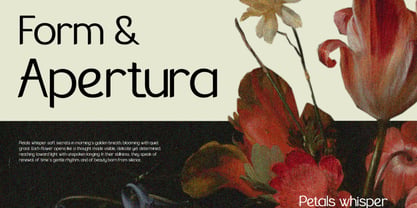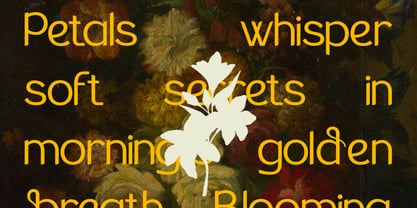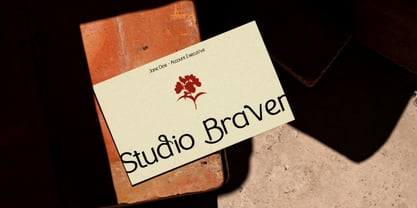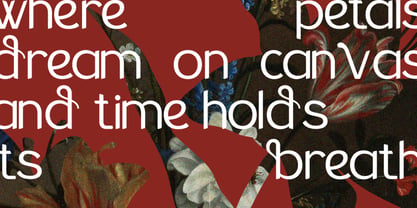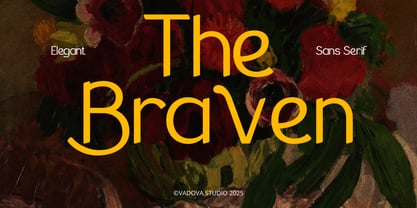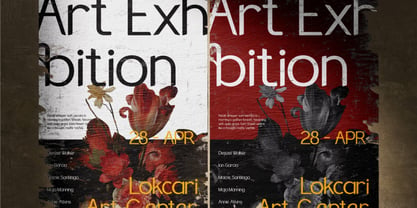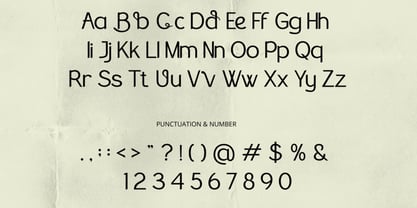
The Braven
by Vadova Std
The The Braven Font Family was designed by and published by Vadova Std. The Braven contains 1 styles. More about this family
The Braven is a sophisticated sans serif typeface with an artistic soul. Designed with soft curves and subtle flourishes, it blends modern structure with elegant personality. The Braven features uppercase, lowercase, punctuation, numerals, and multilingual support, making it a versatile choice for branding, editorial, logos, and more. This typeface brings refined charm and visual warmth to any project, whether printed or digital. Perfect for designers seeking a gentle, elegant touch with just enough modern flair. The Braven is perfect for projects that demand a balance of elegance and modernity. Its soft yet confident style works beautifully in logo design, wedding branding, luxury product packaging, editorial layouts, and lifestyle marketing. Whether you're designing for fashion, floristry, wellness, or high-end retail, The Braven lends a graceful, upscale feel to your visuals.